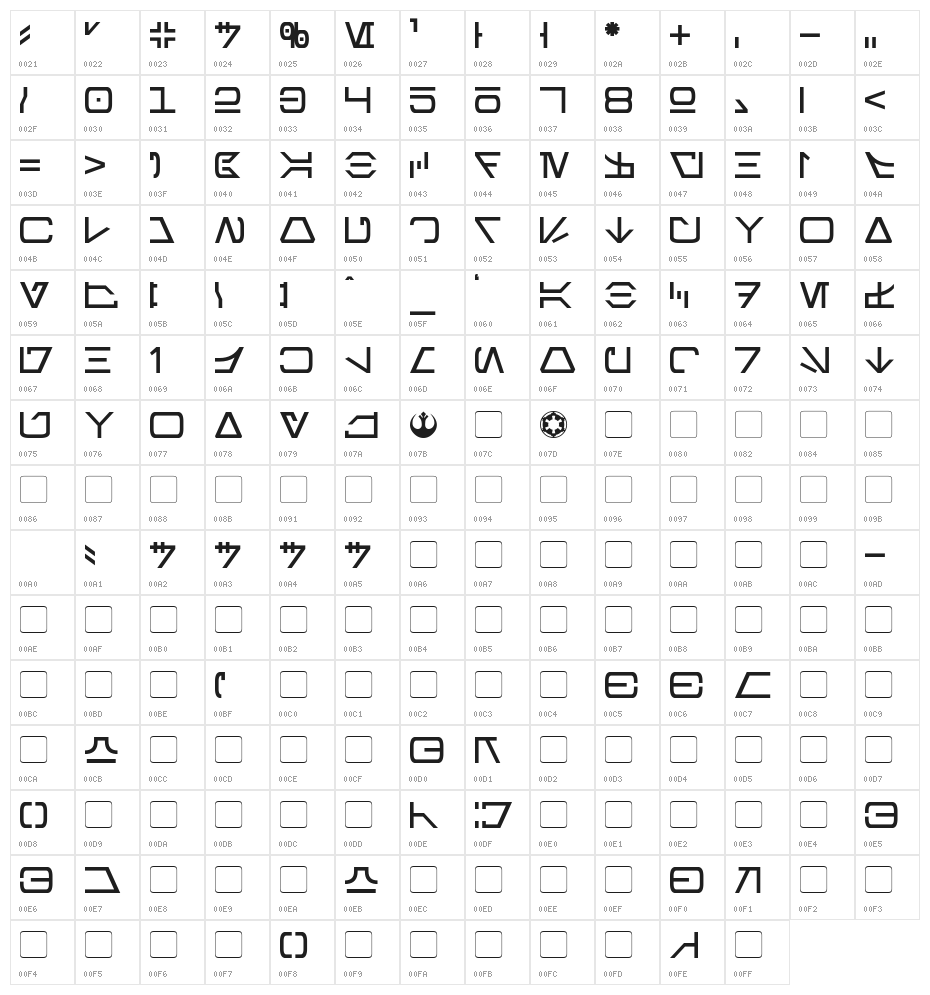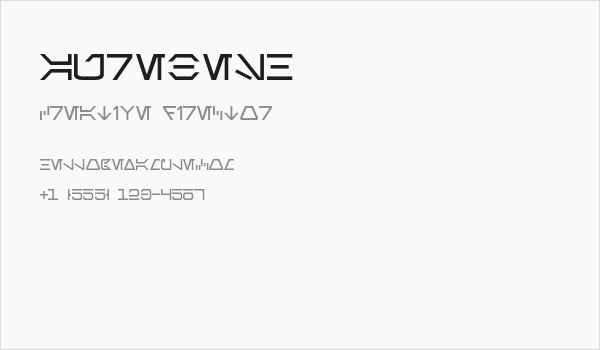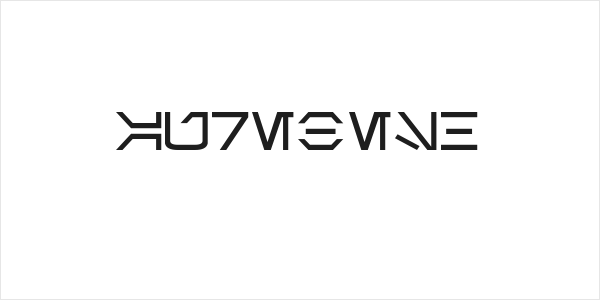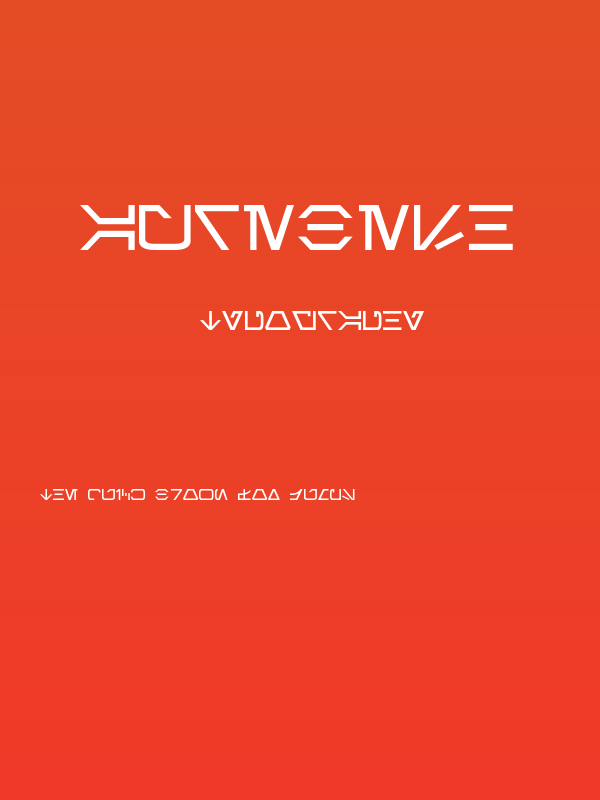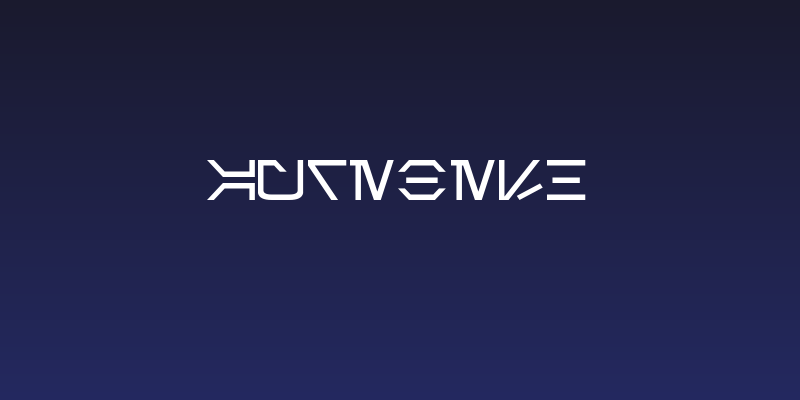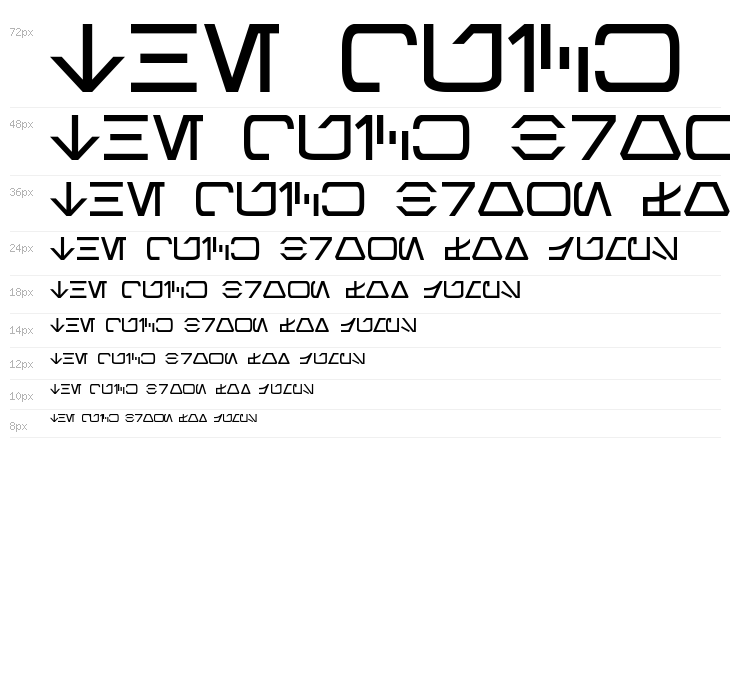
Aurebesh Font
Aurebesh Description
This font is a fictional script used in a popular science fiction universe, known for its angular and geometric shapes. Each character is distinct, with sharp edges and a futuristic appearance, resembling a form of alien writing. The characters are designed to look otherworldly, with a consistent style that suggests a high-tech or advanced civilization. The numerals and special characters maintain the same aesthetic, ensuring a cohesive look across all glyphs. This font is often used to convey a sense of mystery and intrigue, making it ideal for projects that require an exotic or space-themed design.
| Use Case | Logos, Posters, Video game interfaces |
| Proposed Projects | Ideal for science fiction themed projects, video game interfaces, movie props, or any design requiring an extraterrestrial or futuristic aesthetic. |